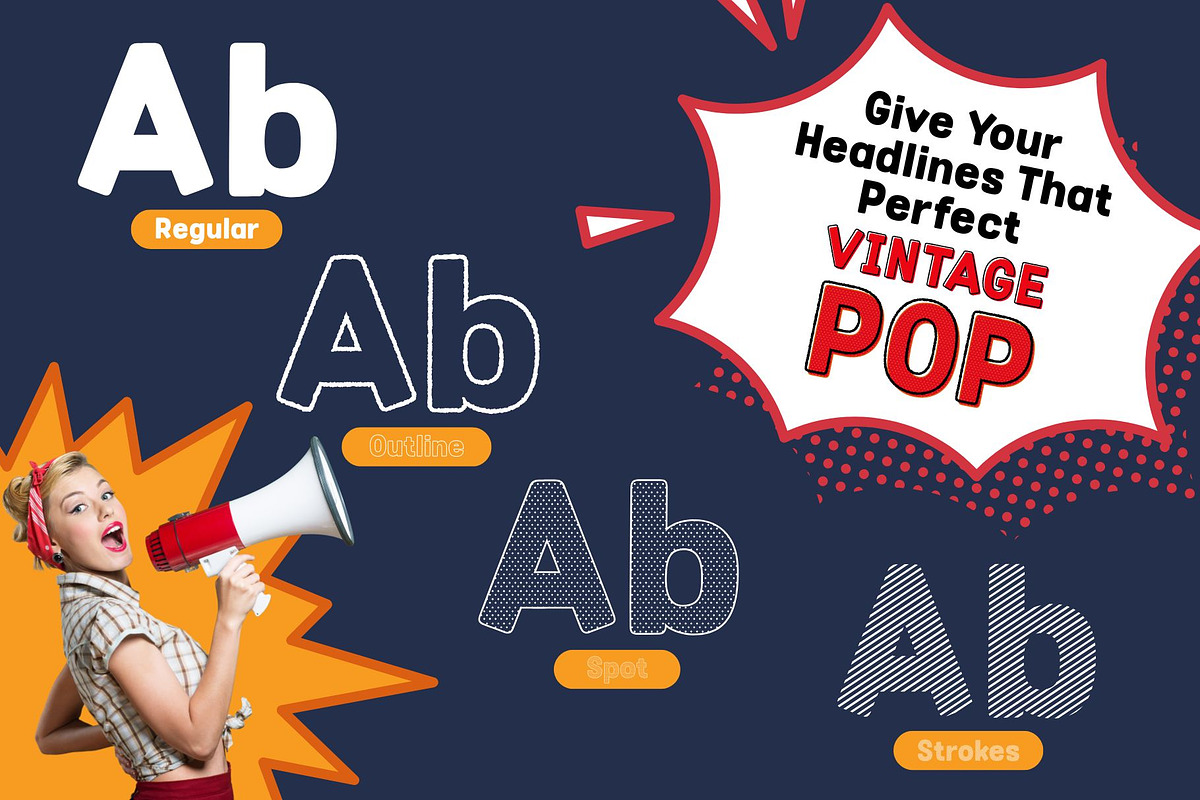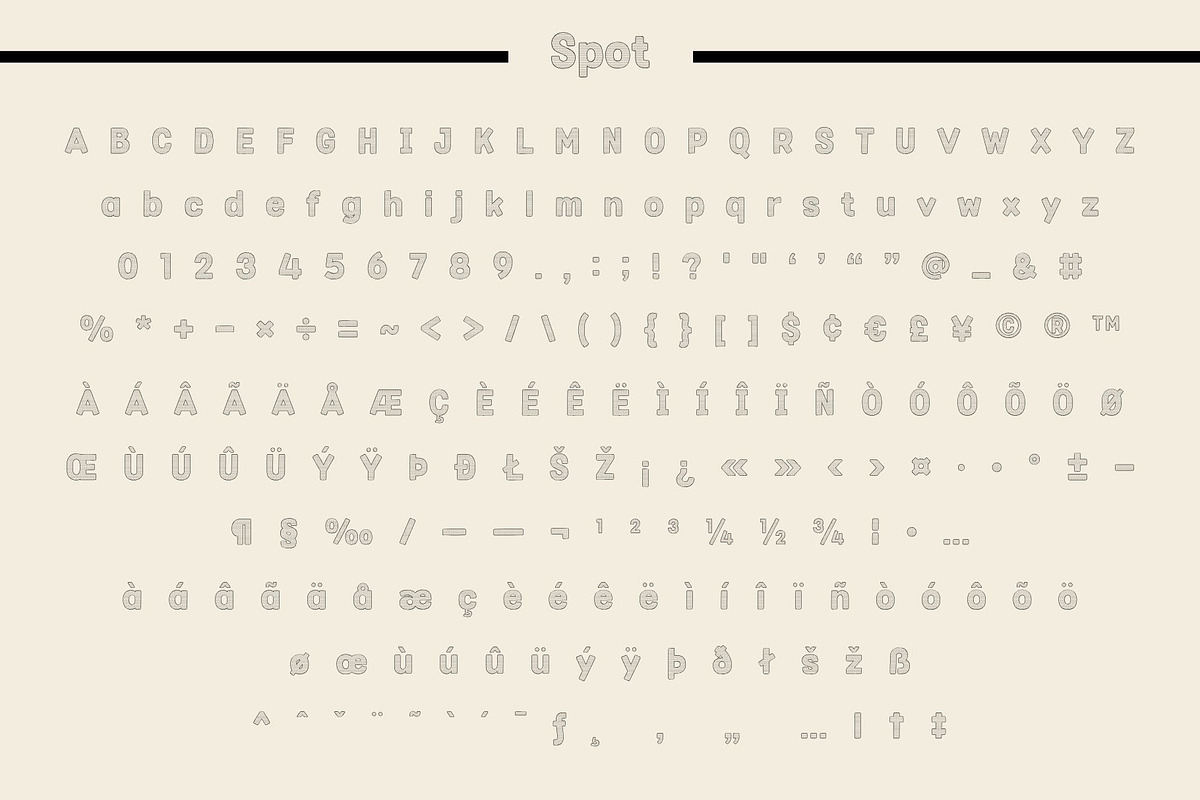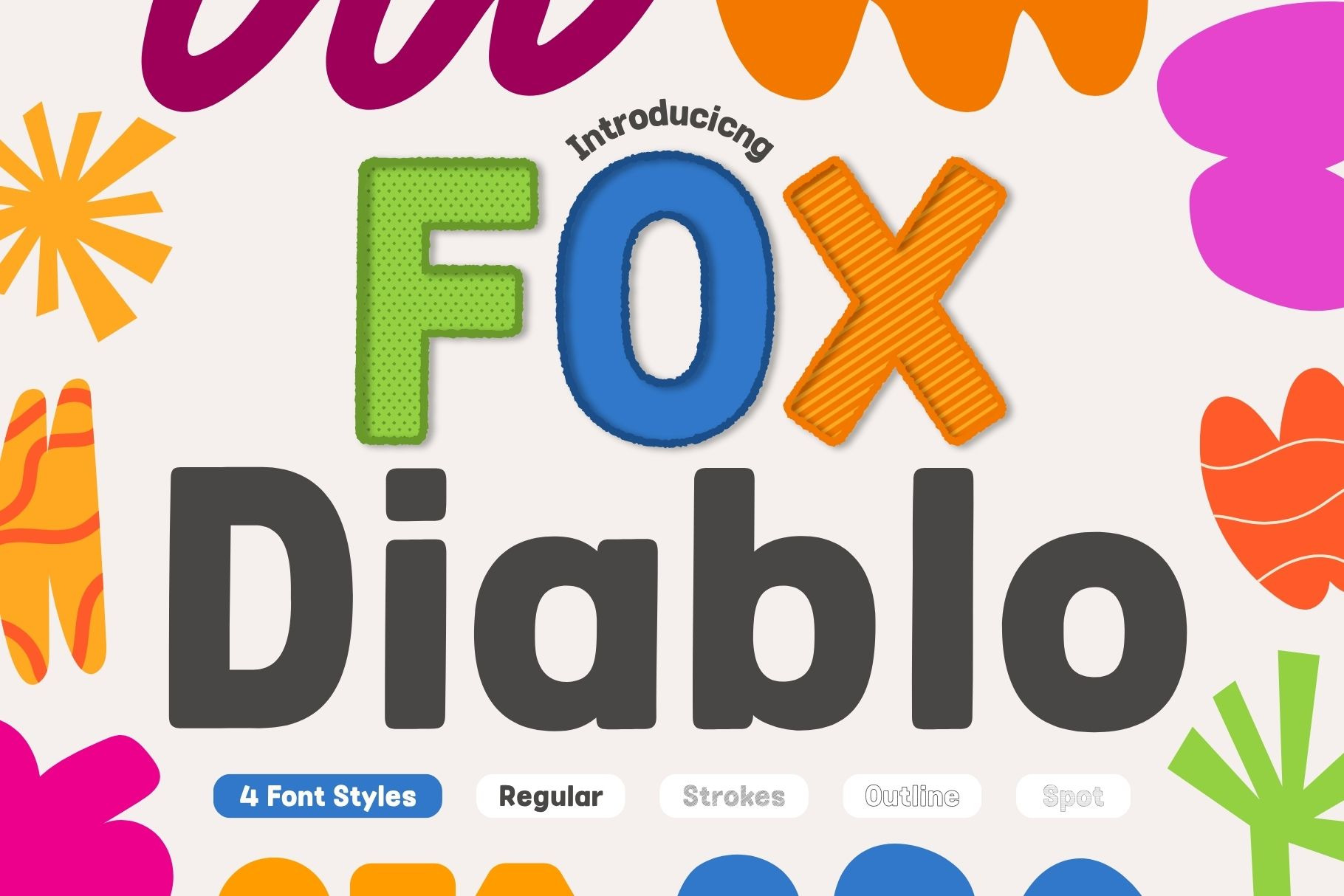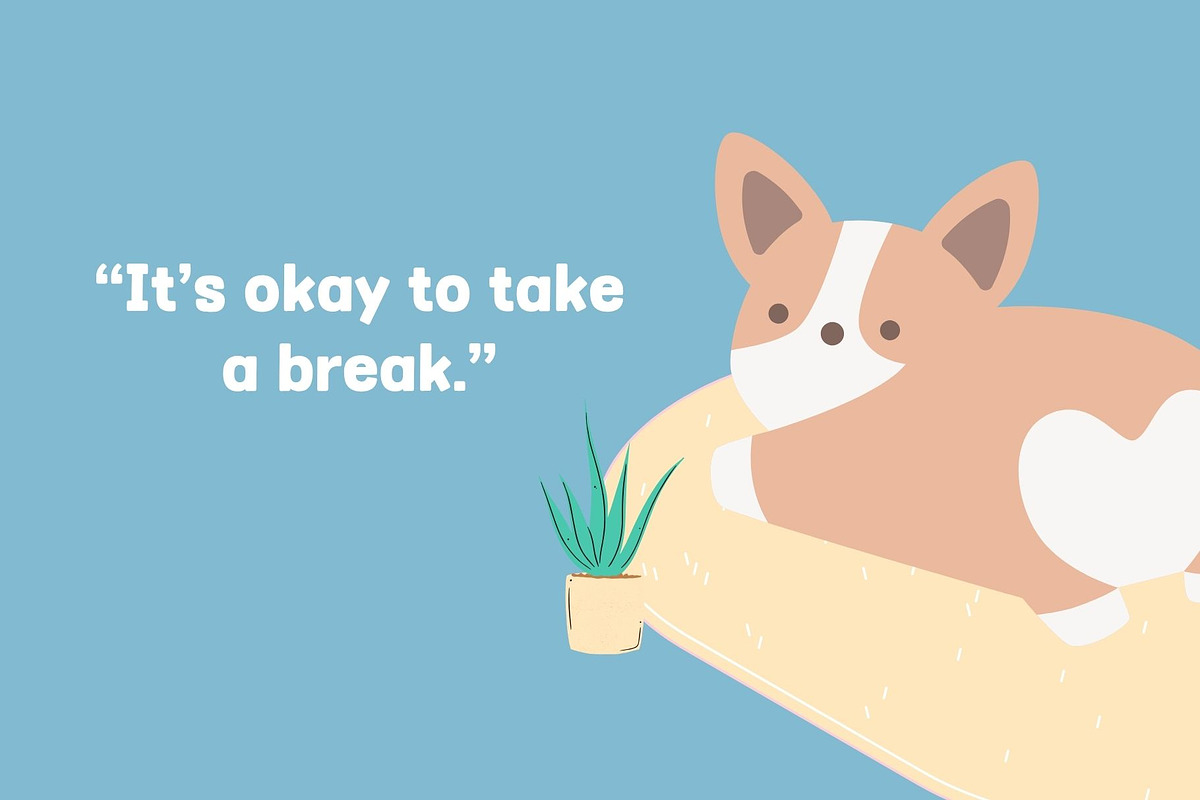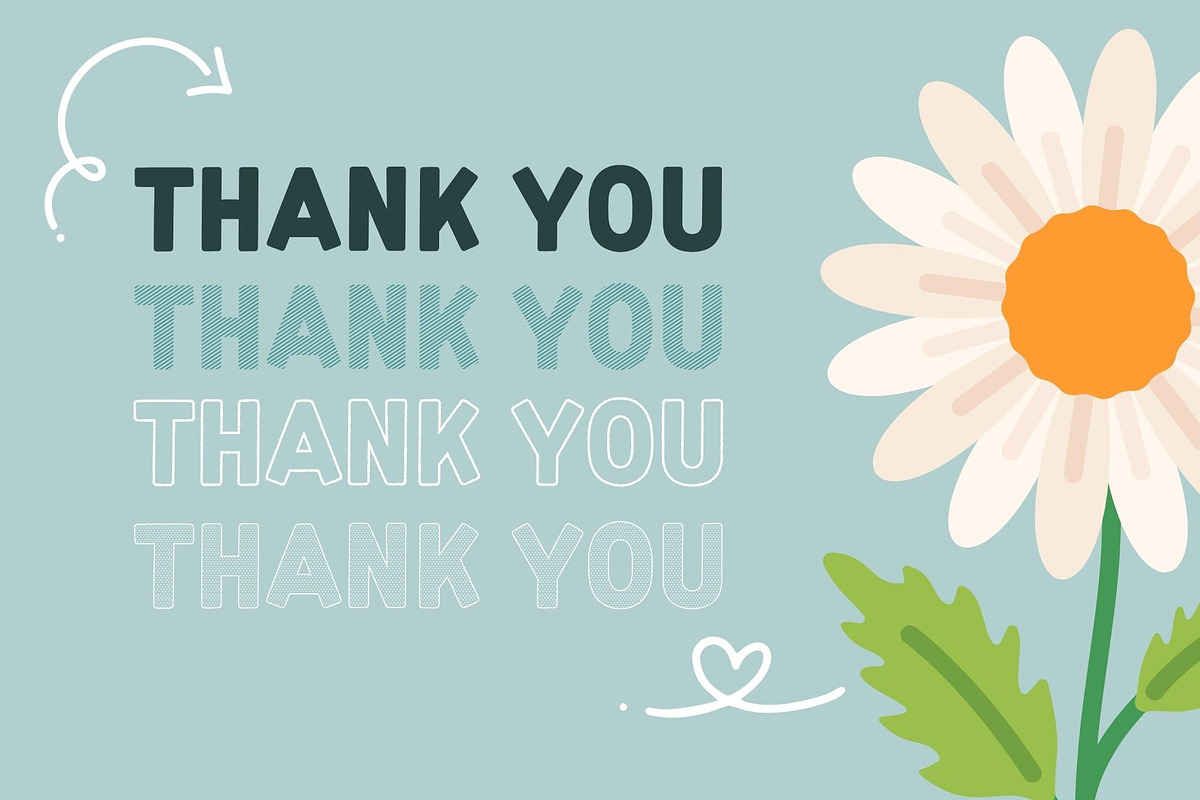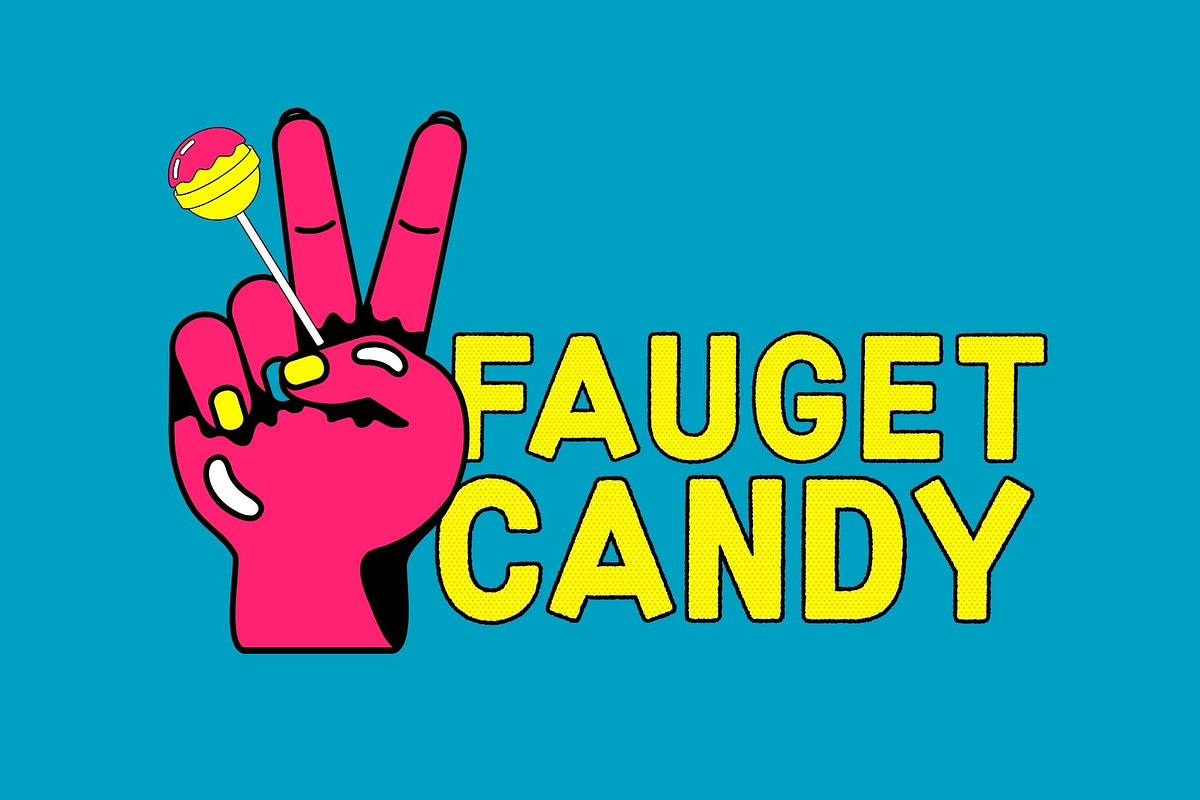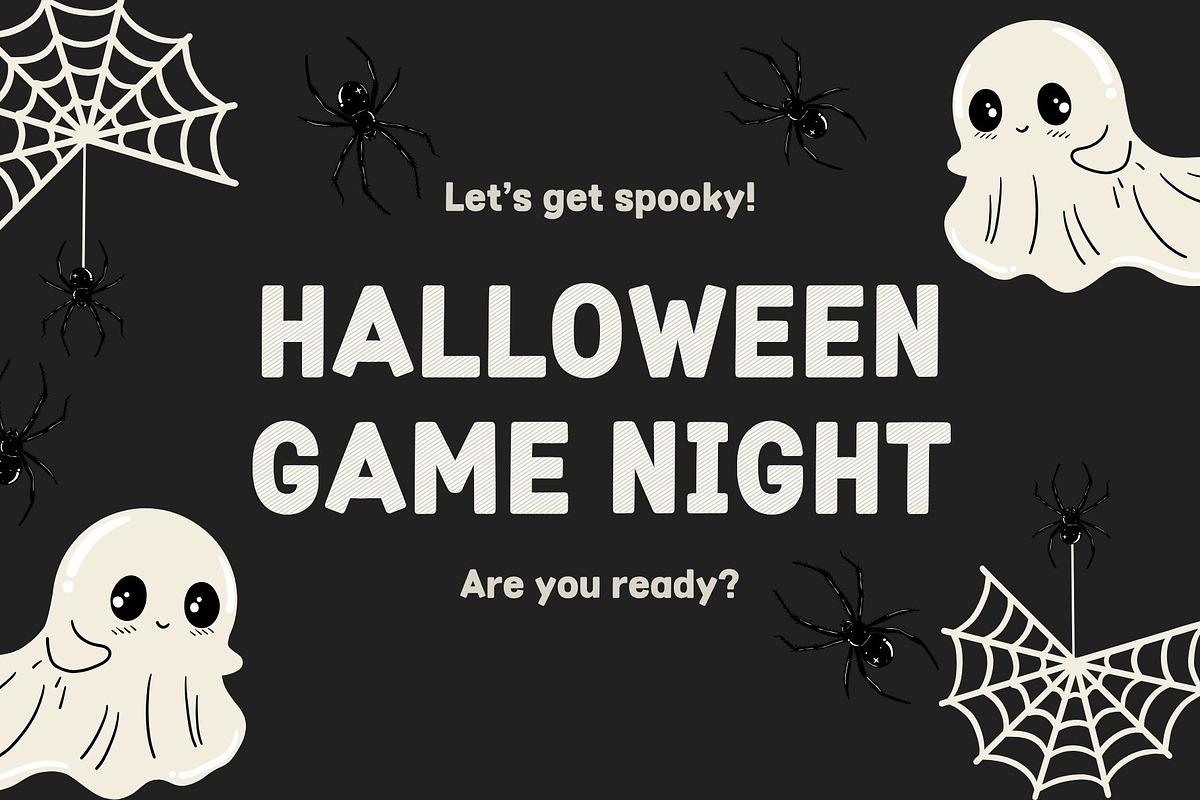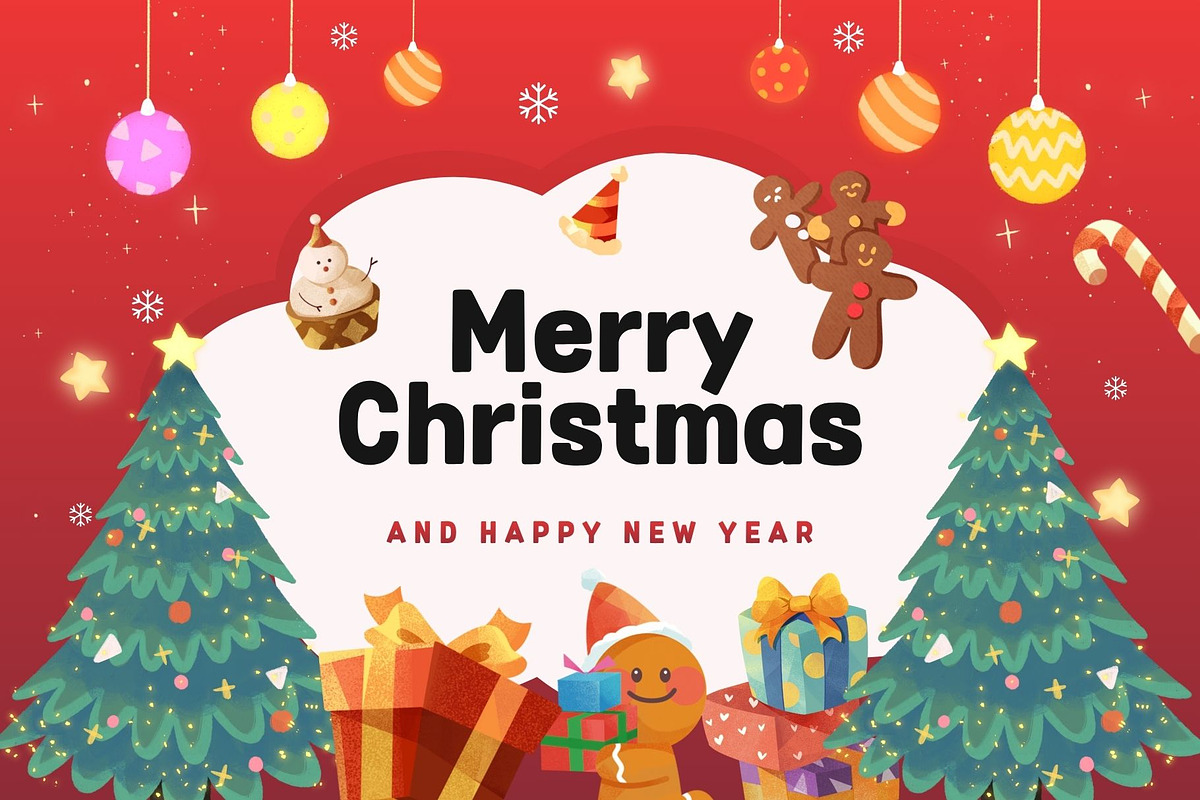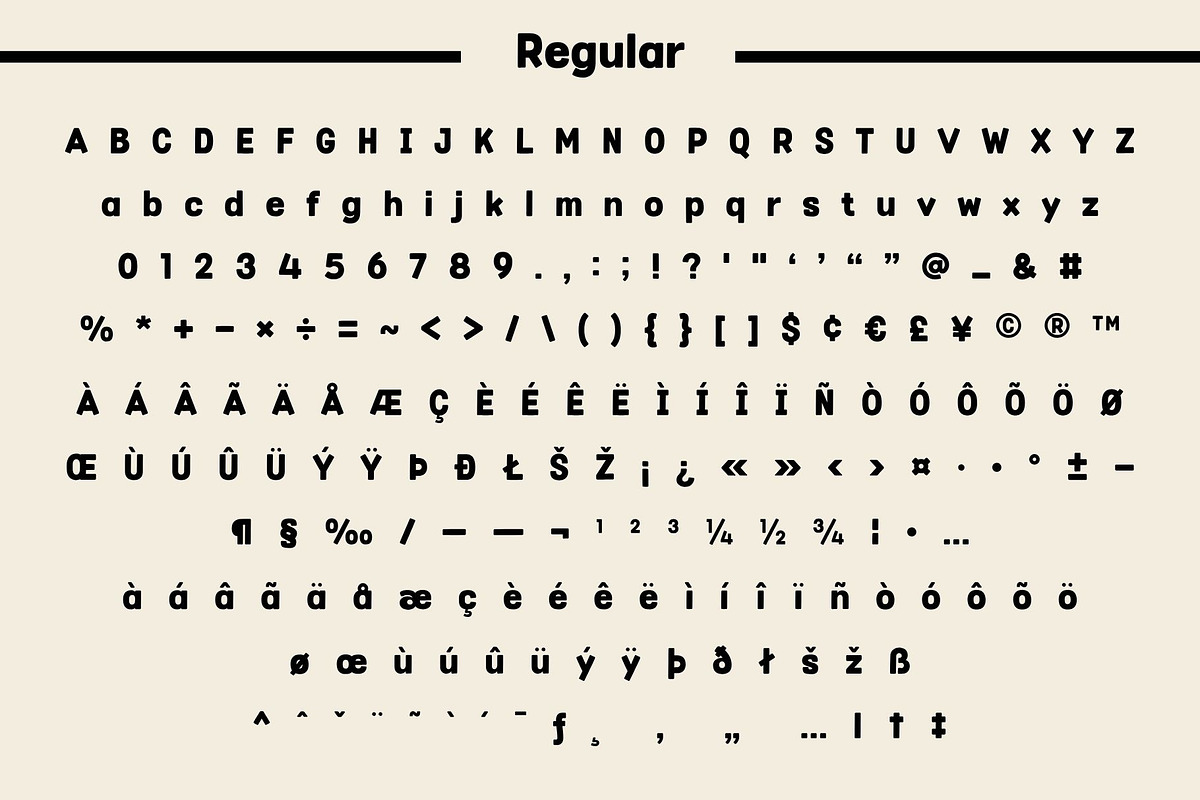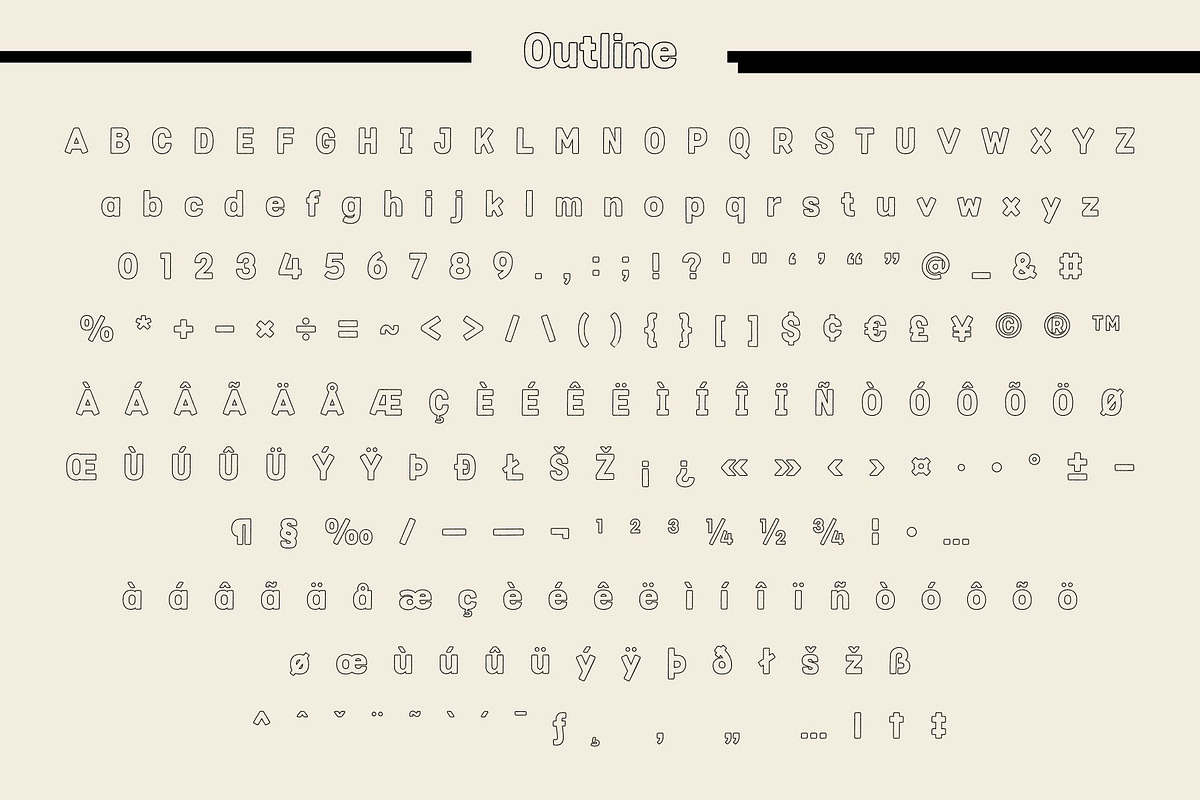
Fox Diablo: 4 Font Styles
Introduce a captivating burst of fun and energy into your designs with Fox Diablo, a delightfully playful display font family! With its bold shapes, rounded edges, and vibrant personality, Fox Diablo is perfect for grabbing attention and bringing a happy, youthful vibe to any project.
Fox Diablo is not just one font—it's a versatile toolkit of 4 distinct font styles :
✦ Regular: The core, solid, and punchy typeface.
✦ Strokes: Adds a dynamic, lined effect.
✦ Outline: A clean, stylish hollow version.
✦ Spot: Features a charming spotted texture.
Kid-Friendly & Fun: Its bubbly, approachable design is ideal for projects aimed at children, making it perfect for educational materials, toys, games, and apparel.
High-Impact Display: The bold weight ensures your headlines, titles, and logos are impossible to ignore.
🌟 Perfect For:
Fox Diablo is your go-to font for designs that need to convey enthusiasm, excitement, and a touch of whimsy. It shines in:
✦ Children's Books & Branding
✦ Logos & Packaging (especially for snacks, sweets, or youth products)
✦ Posters & Event Flyers
✦ Social Media Graphics (Instagram, Pinterest, TikTok)
✦ YouTube Thumbnails & Video Titles
✦ T-Shirt & Merchandise Design